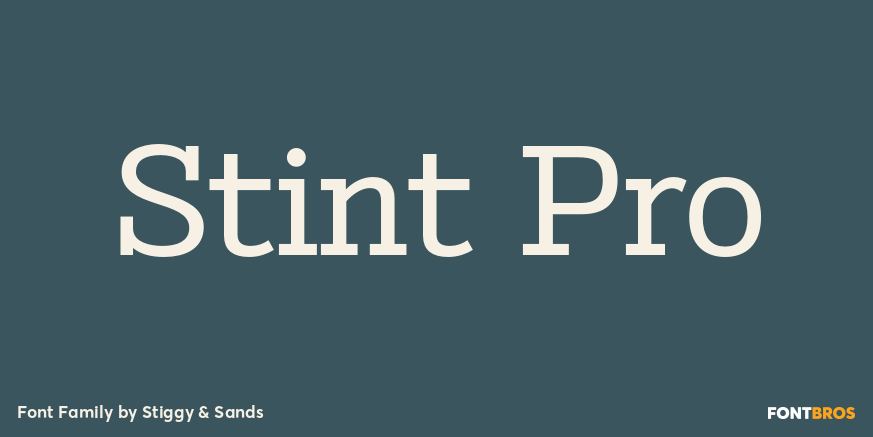
Stint Pro
About Stint Pro
Our Stint Family was originally influenced by extra wide letterform styles and developed later to create an ultra condensed range of fonts and the widths in-between. Highly legible throughout its width & weight ranges, the Stint Pro Family is both perfect…